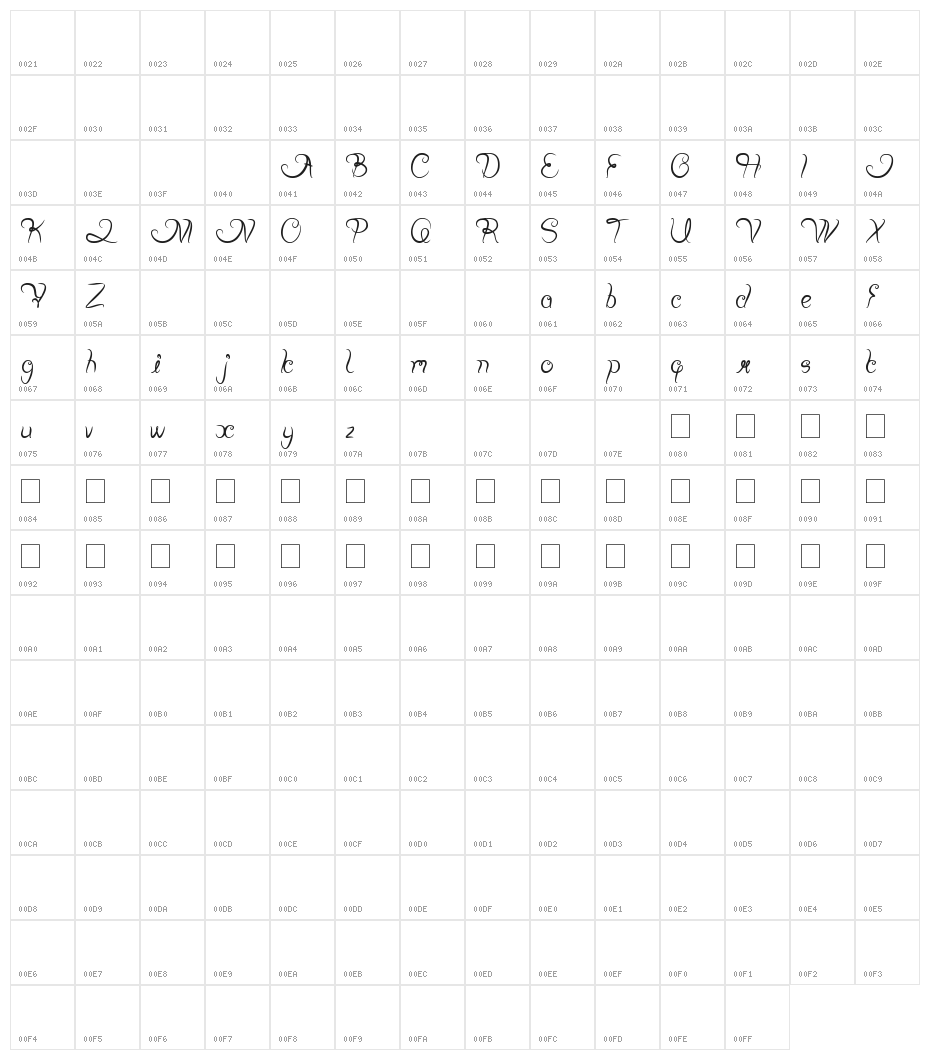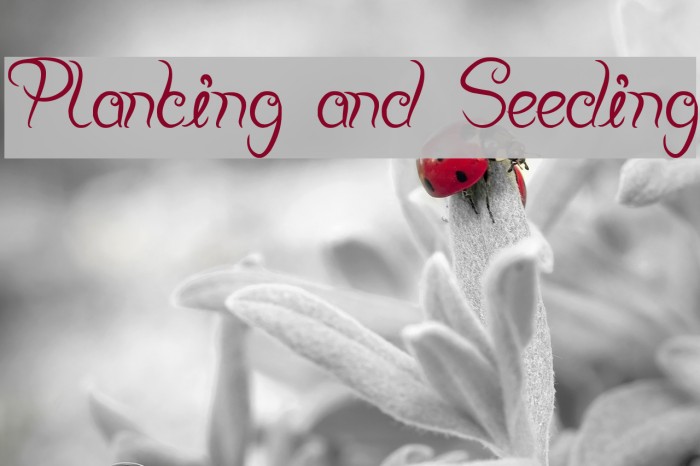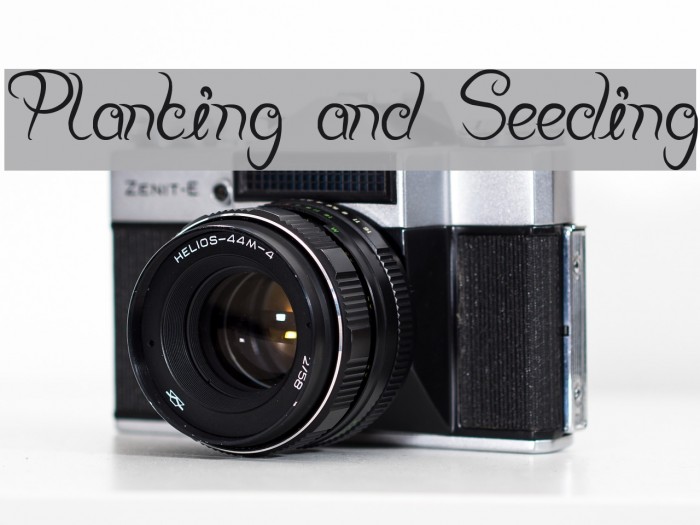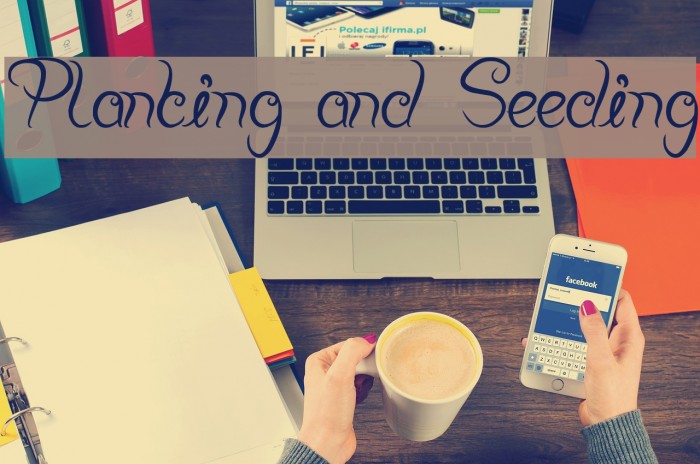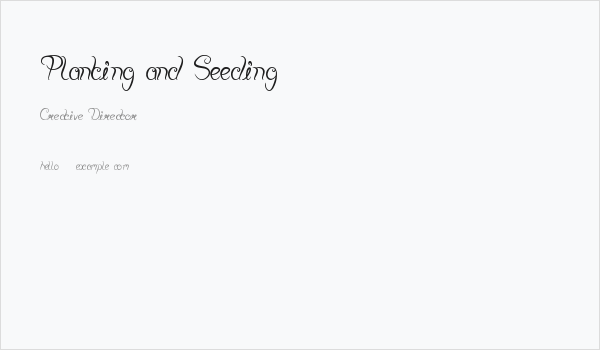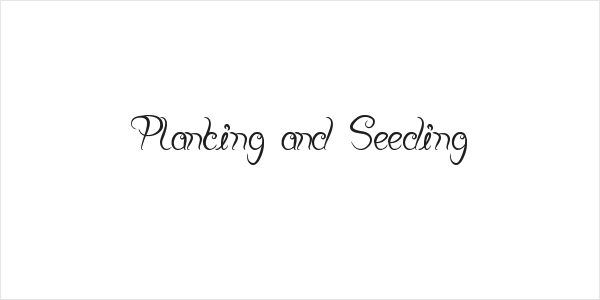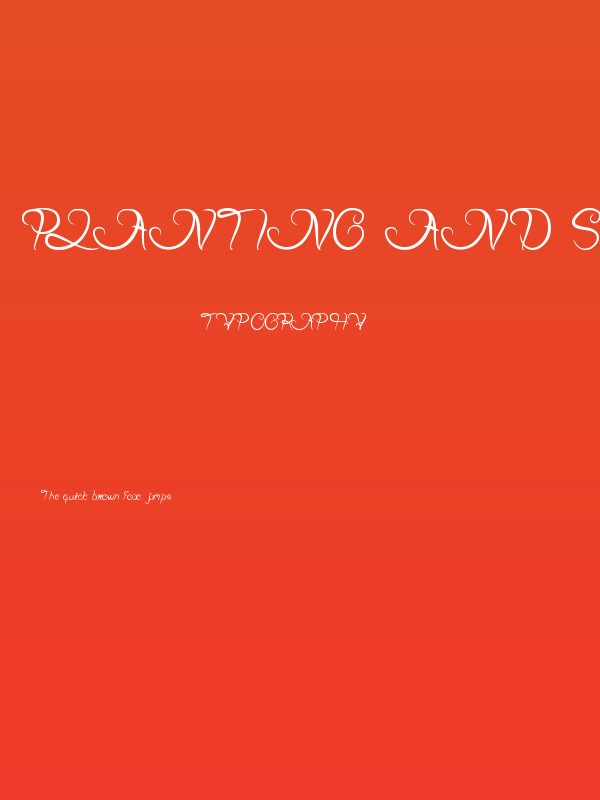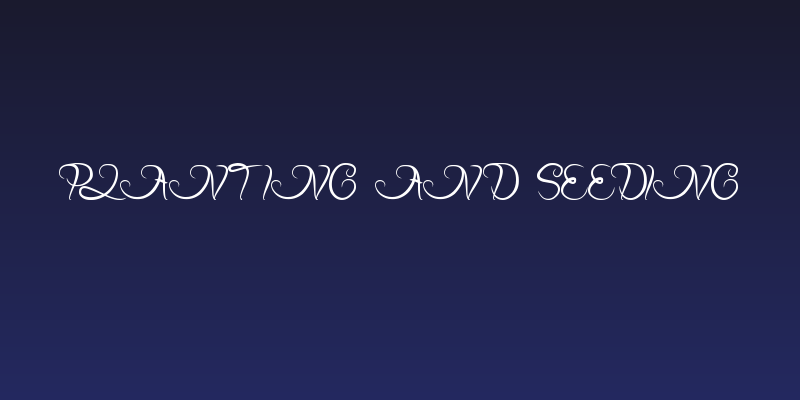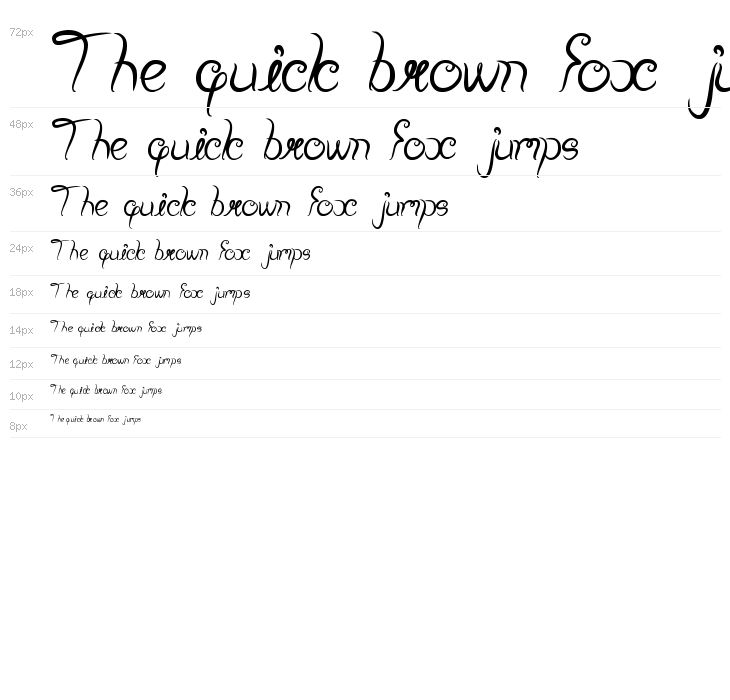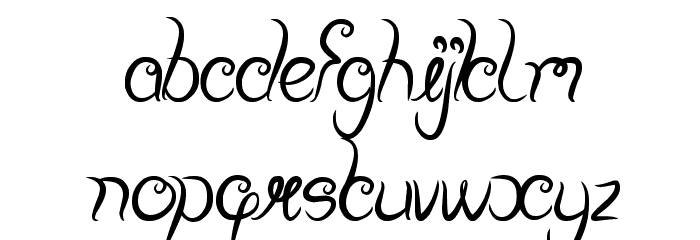
Planting and Seeding Font
Planting and Seeding Description
This font features an elegant and artistic script style with flowing, interconnected strokes that give it a whimsical and sophisticated appearance. The uppercase letters exhibit a graceful, looping design, while the lowercase letters maintain a consistent fluidity, enhancing the font's overall charm. The characters are intricately crafted, with unique flourishes that add a decorative touch. The numbers and special characters are designed to match the font's ornate style, ensuring a cohesive look across all text elements.
| Proposed Projects | Ideal for wedding invitations, greeting cards, branding projects, and any design that requires a touch of elegance and sophistication. |